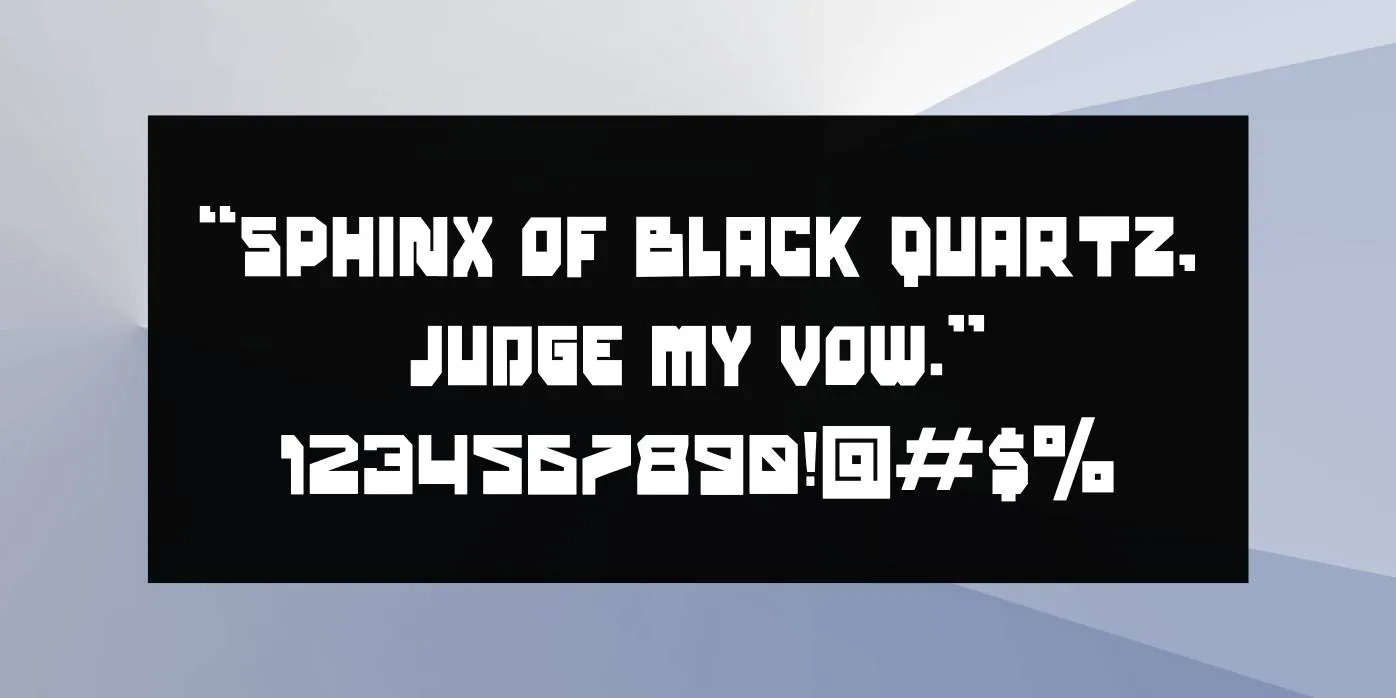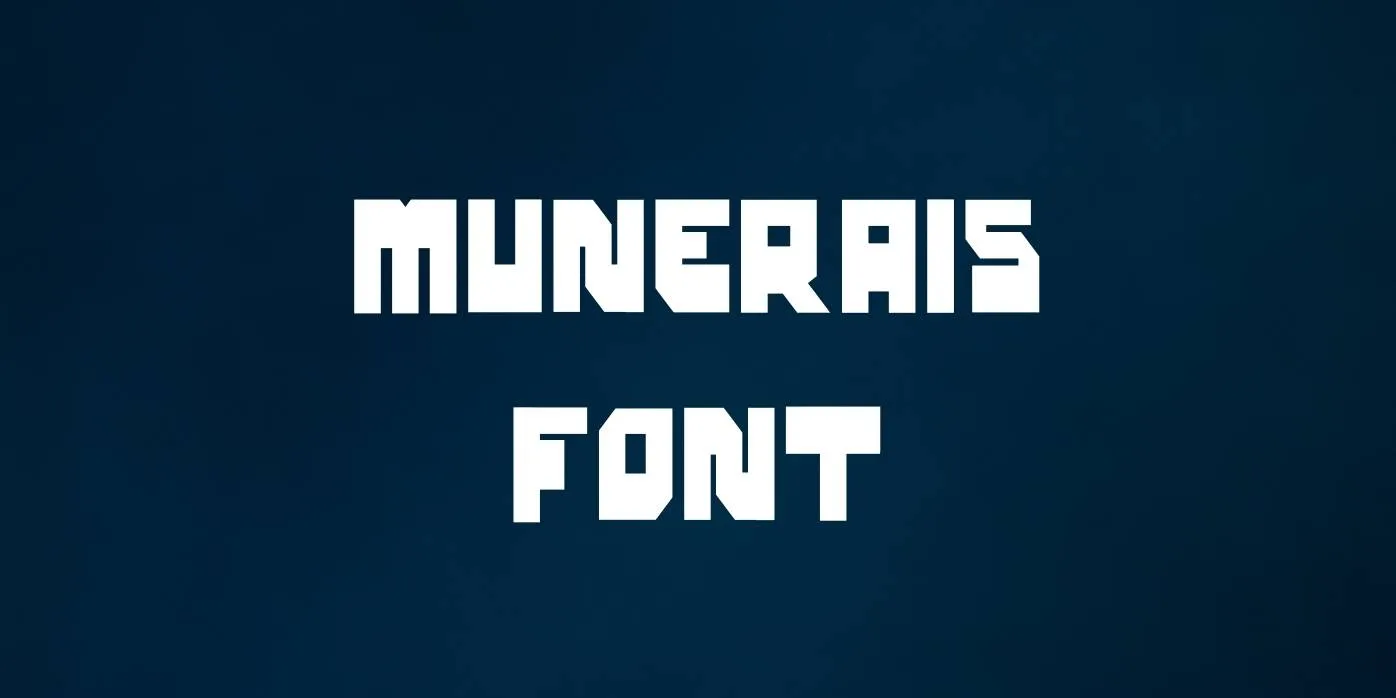
Munerais Font
The Munerais font is a display-type font. The designer of this font is Hayoyuka. The initial date of release of this font is October 30, 2021, and was last updated on July 1, 2023. This font includes Regular, Bold, and Black weights.
It is considered a techno and modern font which can be used for various projects. It also provides the facility of an online generator tool which makes copying and pasting the text easy to use and your working style improves with less time. This font contains characters, numbers, capital letters, special characters, and punctuation. It consists of 655 characters and 213 glyphs.
It has two styles regular and Italic.